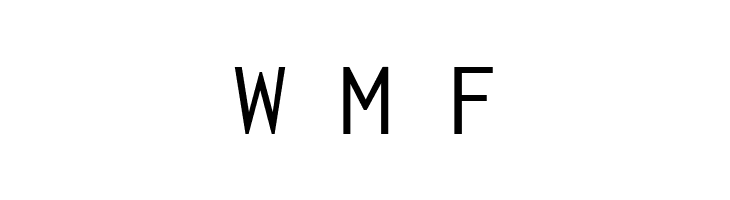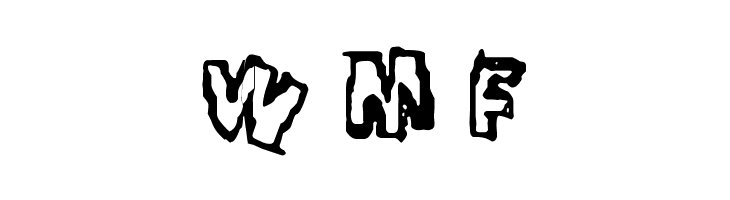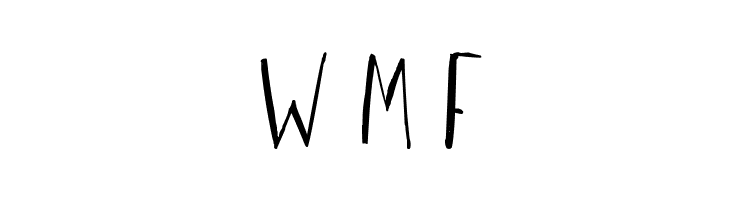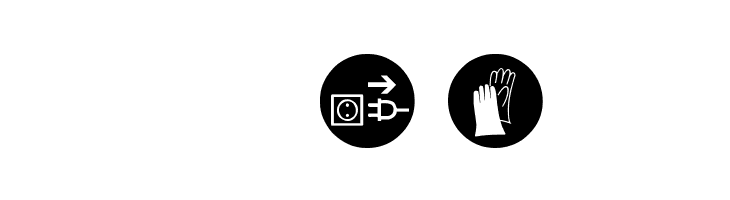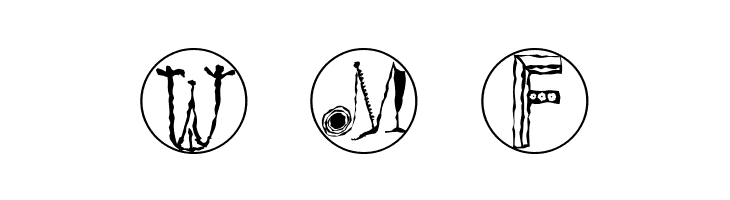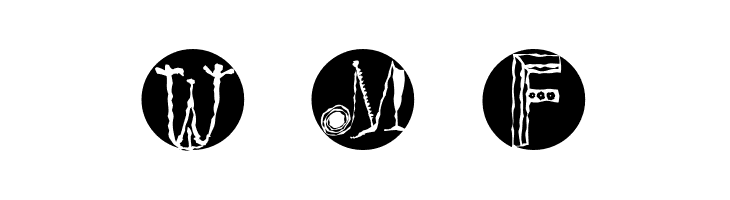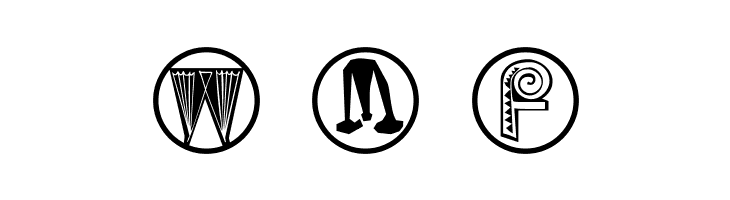
• IllustratedAlphabet
A bold, decorative font with artistic illustrations within each letter.
• imperatives tables
• ImresCorrodetCaps
A whimsical and decorative font with unique artistic elements in each character.
• ImresCorrodetCapsInvers
A decorative and artistic font with intricate designs within circular boundaries.
• ImresDiscs
A decorative and whimsical font with characters enclosed in circular discs, ideal for playful designs.
• in_my_head
A bold, playful font with a hand-drawn, graffiti-like style.
• incognita
• Inconsolata
A clean, monospaced font ideal for coding and technical documents.
• Inconsolata
A modern, monospaced font with excellent readability and uniform spacing.
• Inconsolata Bold
A modern, monospaced font with bold weight and excellent readability.